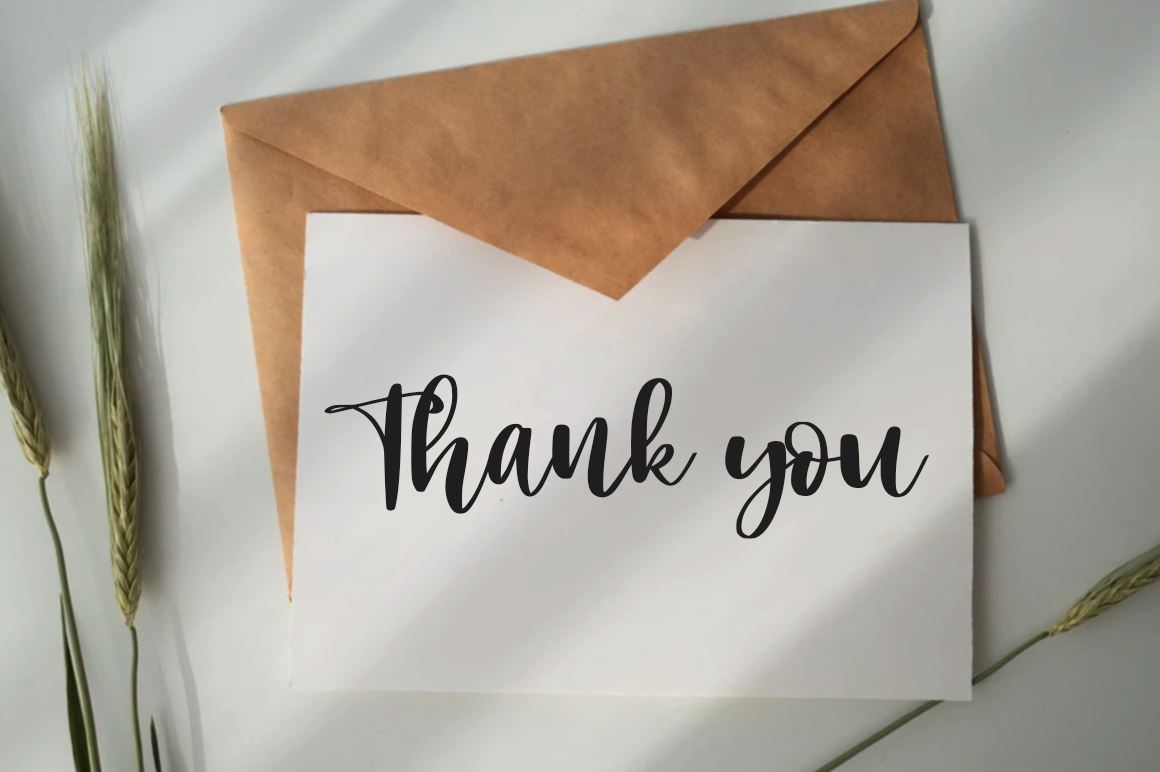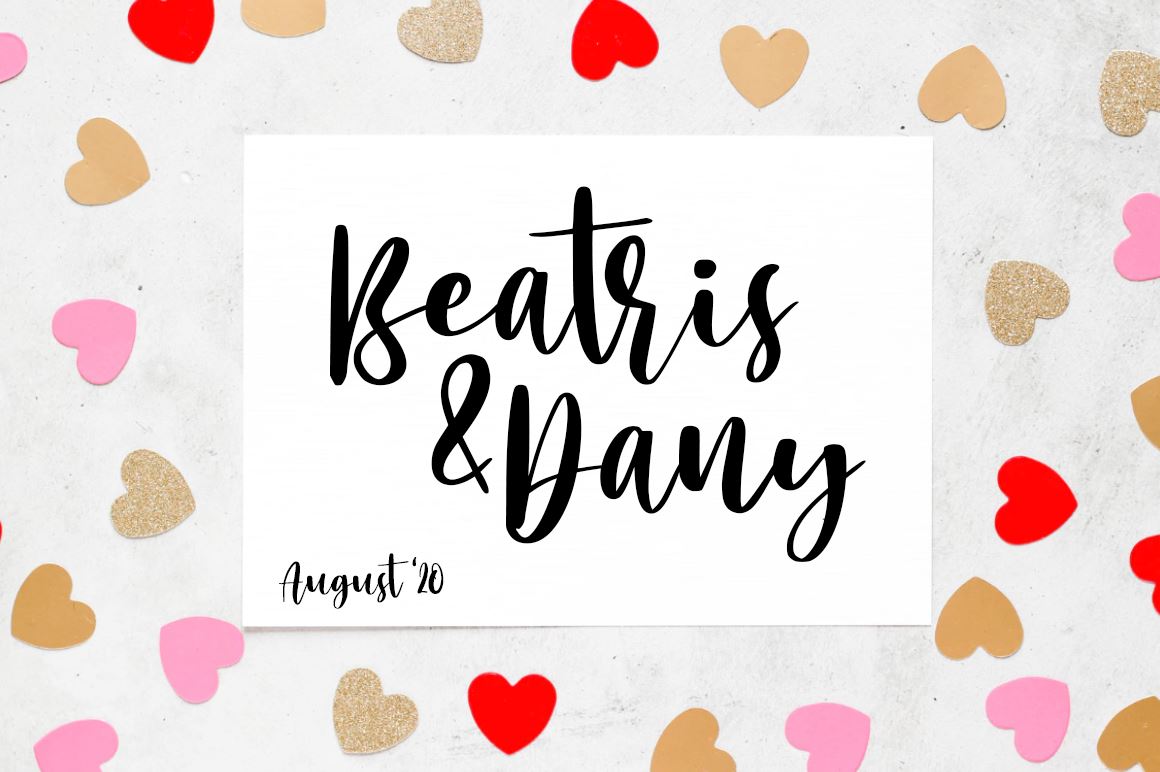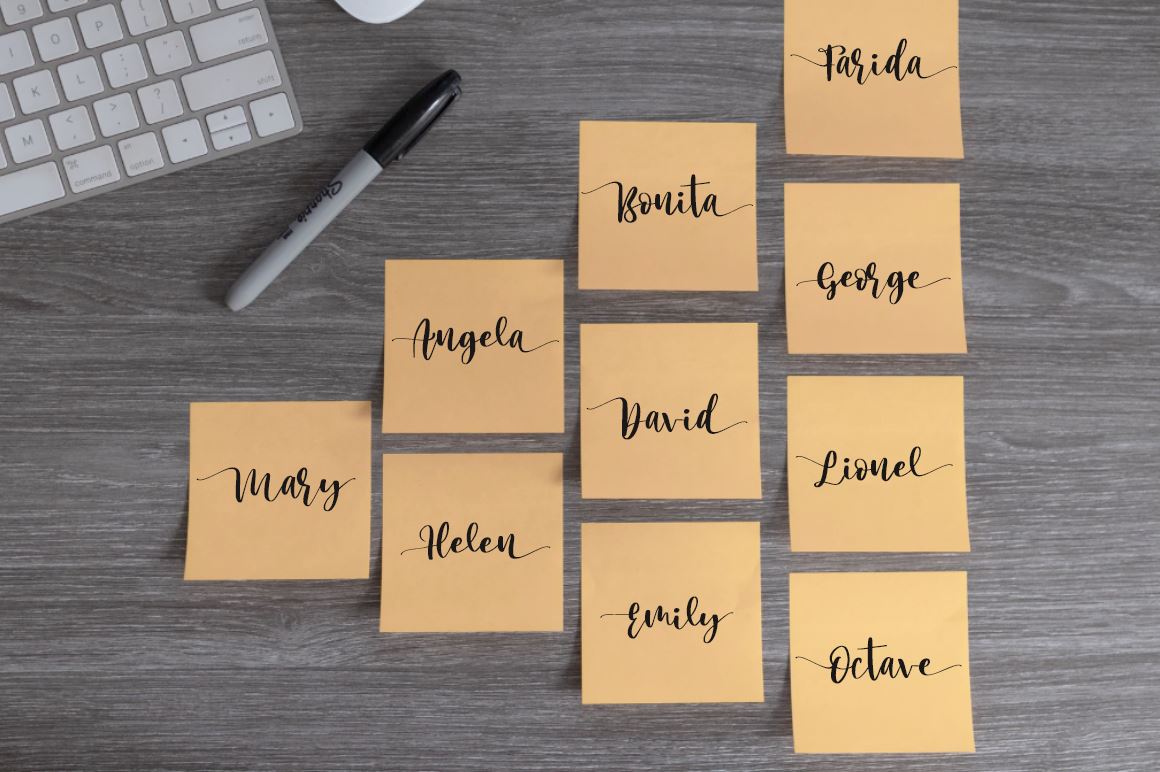
About Mango Salsa with Bouncy Handwritten Script Font Style
A handwritten font with bouncy script style Specifics: Cute and pretty style with swashes alternate in lowercase and titles alternate in uppercase You will receive otf, ttf files with your purchased Numerical, Punctuation, Multi language included Happy Designing!